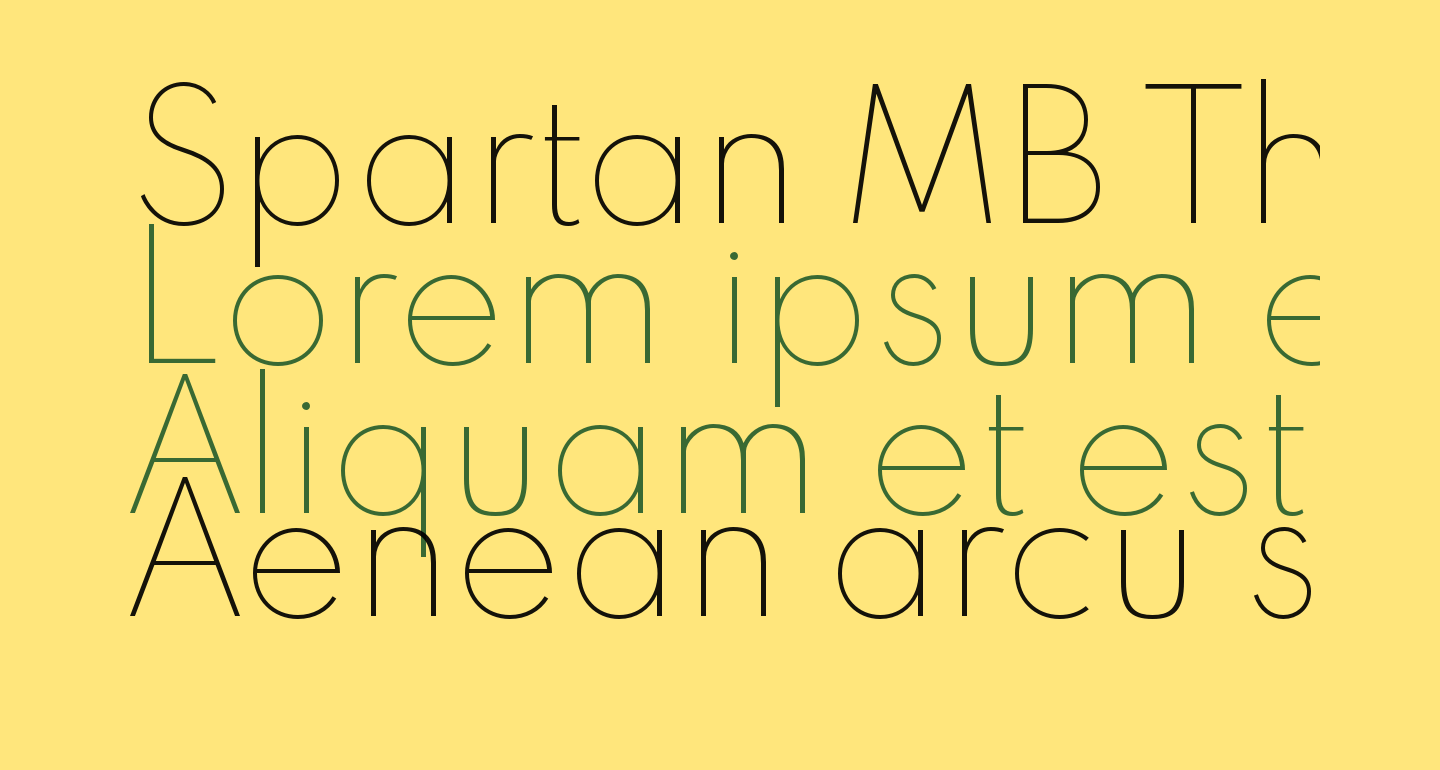
Google Fonts Spartan: A Comprehensive Review Of The Latest Font
The world of graphic design is constantly evolving and changing. Every day, new fonts are released, providing designers with more options and choices to create beautiful, unique designs. One of the most recent typeface releases is Google Fonts Spartan, a stylish sans-serif font with a modern vibe. In this article, we’ll take a look at what makes this typeface so special, as well as its features and benefits.
What is Google Fonts Spartan?
Google Fonts Spartan is a font that was released in the year 2023 by Google, for use in Google Docs and other Google applications. It is a sans-serif font that has a modern, sleek look to it. It is a font that was designed to be used in all types of documents, from business reports to marketing materials. It is also highly legible and easy to read, making it perfect for use in web and mobile applications.
Features and Benefits of Google Fonts Spartan
Google Fonts Spartan is a versatile typeface that can be used in a variety of applications. It is a modern font, with a contemporary feel that makes it perfect for use in web, mobile, and print projects. The font features a clean, simple design that is easy to read and understand. It also features a variety of weights and styles, allowing designers to create a wide range of looks.
Another great feature of Google Fonts Spartan is its accessibility. The font was designed to be accessible to all users, regardless of their device or operating system. It supports a variety of languages, including English, Spanish, French, German, and more. It also works in both light and dark themes, making it easy for designers to create projects for any environment.
When To Use Google Fonts Spartan
Google Fonts Spartan is ideal for use in any type of project. It is a versatile font that can be used for both print and digital applications. It is perfect for use in web and mobile applications, as well as business reports, marketing materials, and other documents. It is also a great choice for use in branding and logos, as it is easy to read and understand.
How to Use Google Fonts Spartan
Google Fonts Spartan is a modern, stylish font that is perfect for use in all types of projects. It is a versatile typeface that is easy to read and understand, making it perfect for use in web and mobile applications, as well as in print projects. It is also highly accessible, supporting a wide range of languages and environments. If you’re looking for a modern, stylish font that is easy to use and read, then Google Fonts Spartan is a great choice.